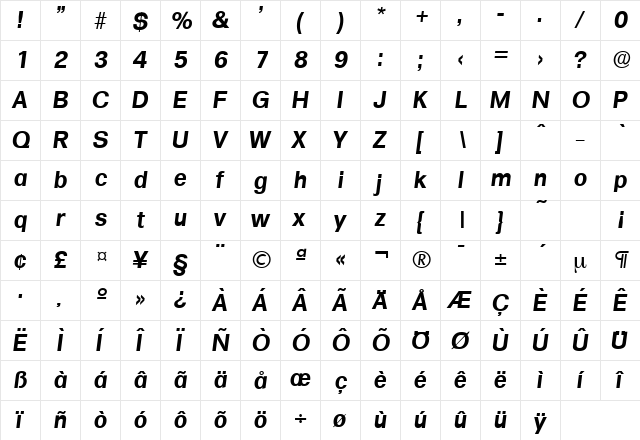
Formula-Serial BoldItalic
Design Context for Formula-Serial Typeface
Formula-Serial is a composed and adaptable typeface that performs quietly and consistently across a wide range of design contexts. The slanted form adds forward momentum and visual energy. Its bold stroke weight gives it real presence on the page.